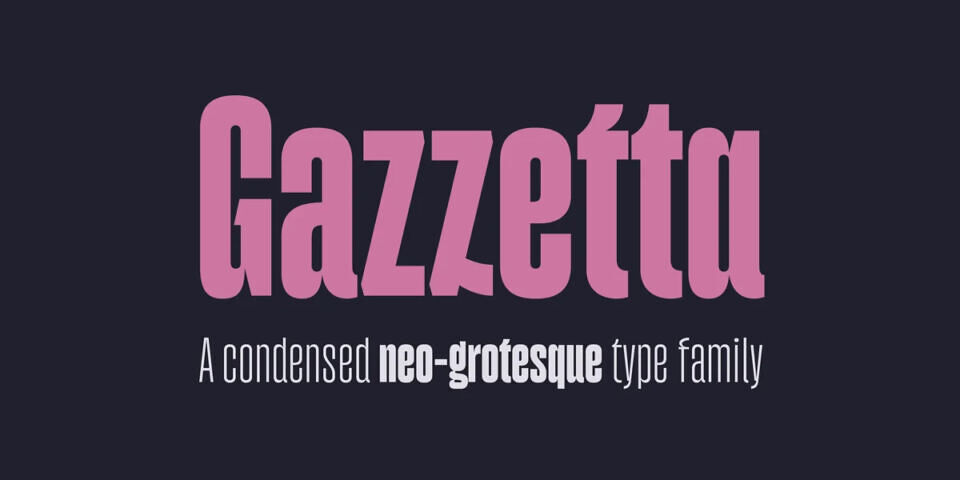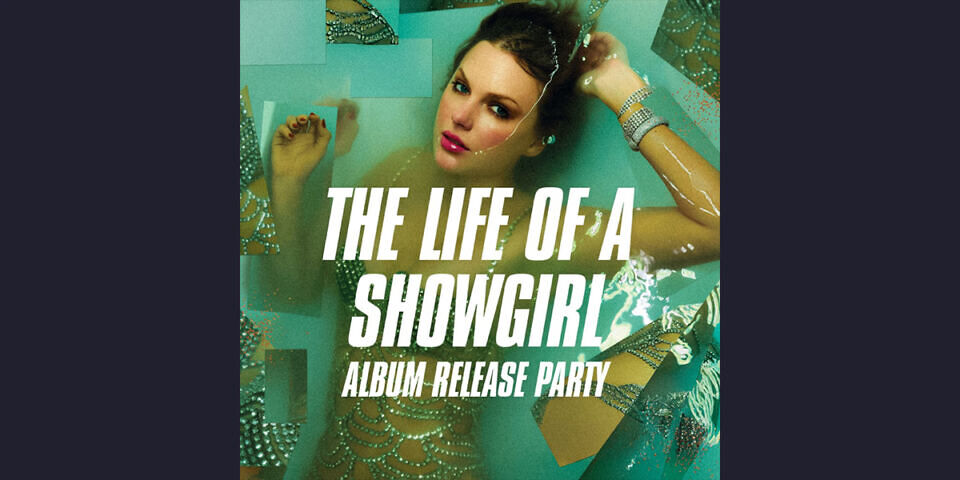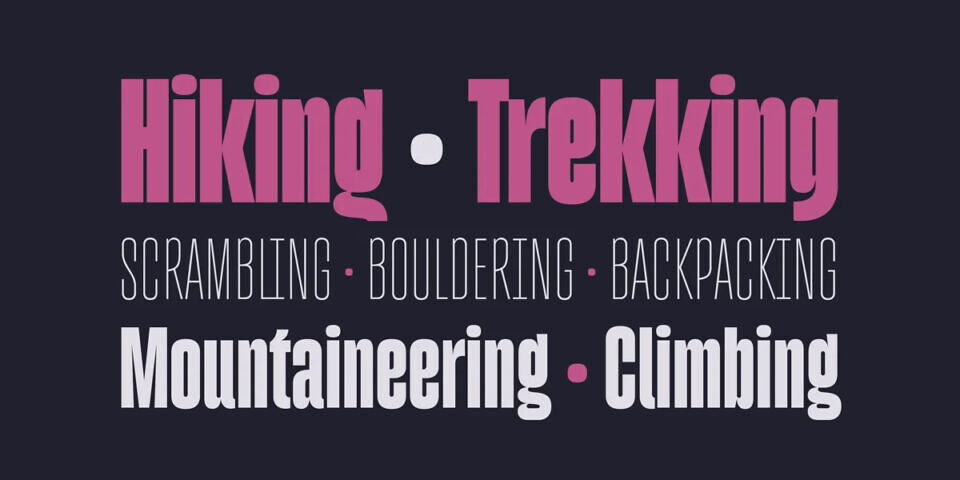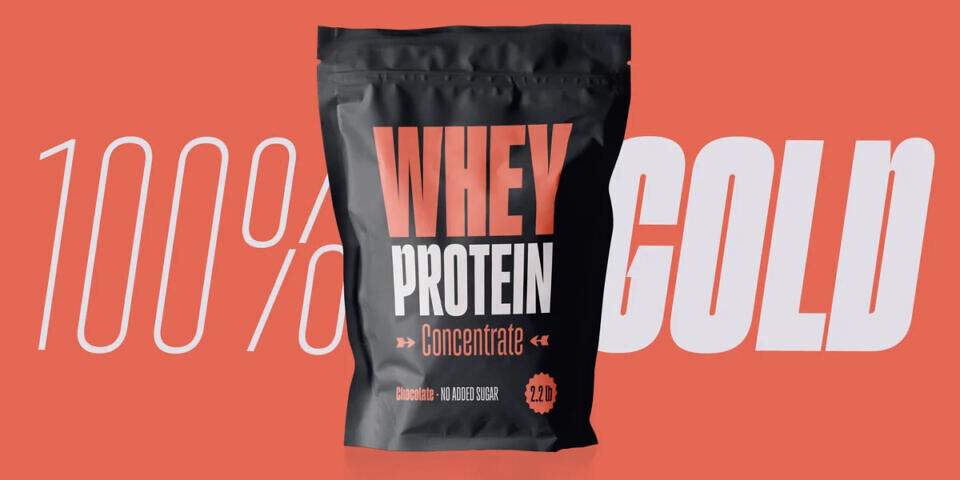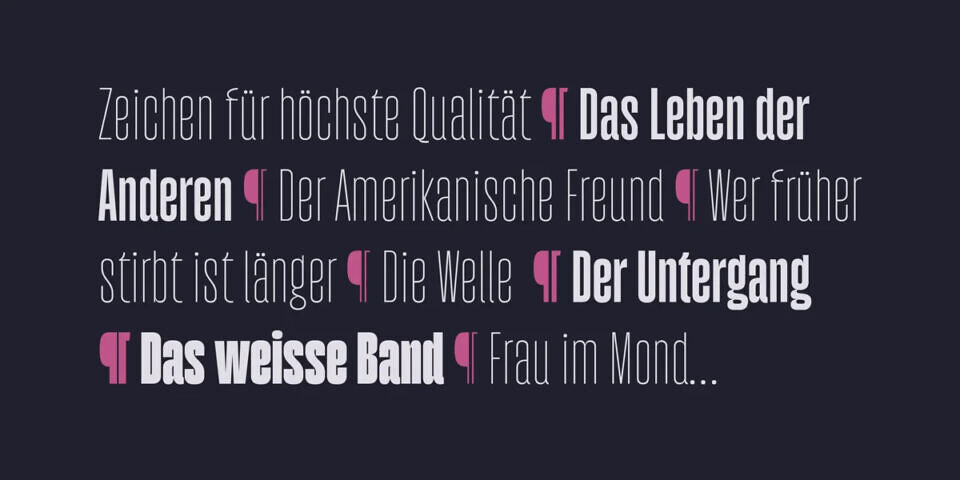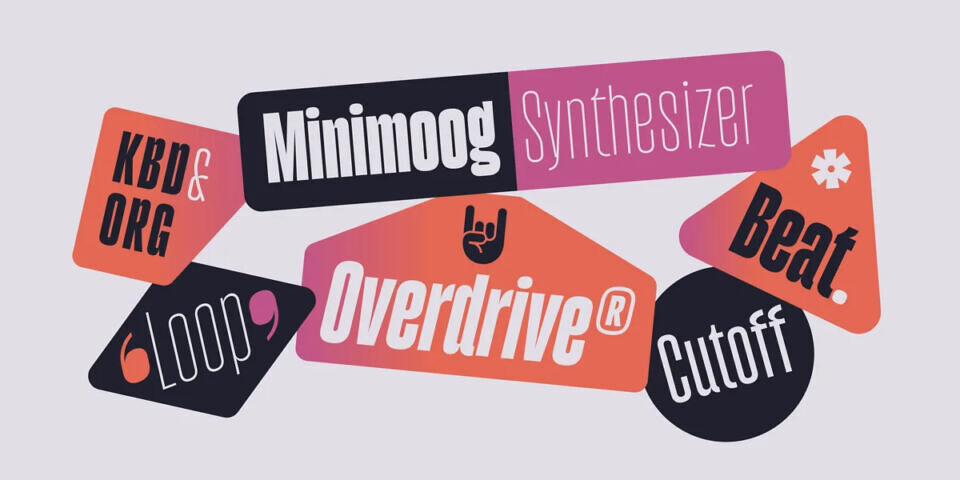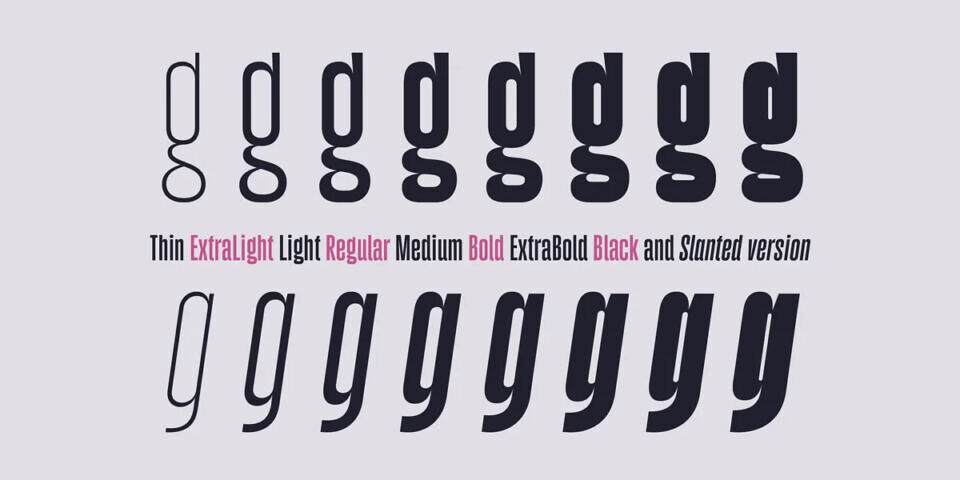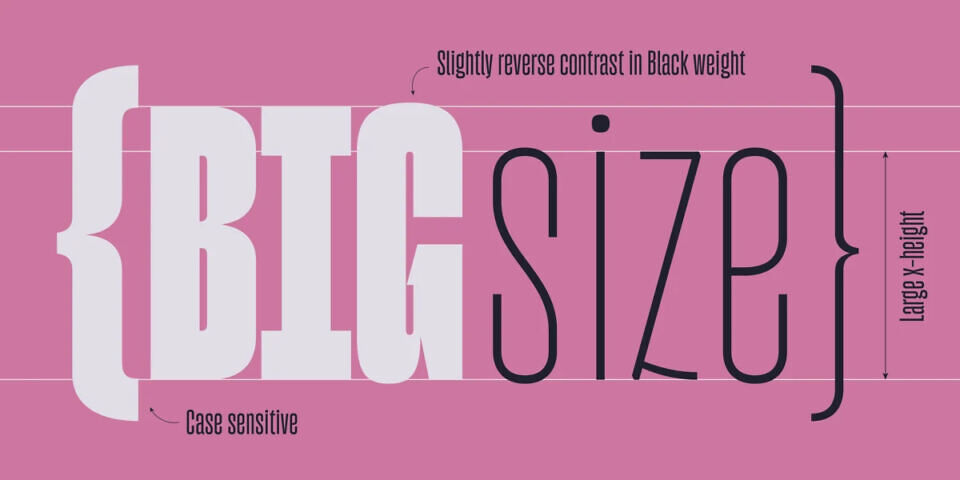
Gazzetta Font
Gazzetta is a condensed font family with a display character and neo-grotesque nature, friendly and energetic. It exhibits softened features and curves, very sharp joins between some strokes, and a slight reverse contrast in its thicker weight.
Characteristics that give it a lot of personality and display capacity. The family is made up of 8 weight variables and their respective slanted versions (16 total), with substitutions in some glyphs that seek to maintain an italic flavor.
Its aesthetic and technical attributes can be used in the design of book covers, newspapers, magazines, posters, large format materials, websites and apps.
Its variable format, notably the Gazzetta Slanted variant, is prominently featured in the logo and cover art for Taylor Swift’s twelfth studio album, The Life of a Showgirl, set for release on October 3, 2025. (You can also get a similar style with the free Steelfish font)